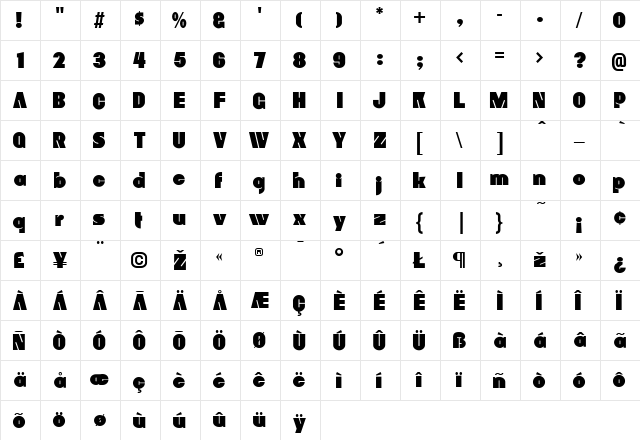
Chesty Regular
| Foundry | Digitized by Dan X. Solo. Software \ by Dover Publications, Inc |
Design Context for Chesty Typeface
Chesty is a composed and adaptable typeface that performs quietly and consistently across a wide range of design contexts.